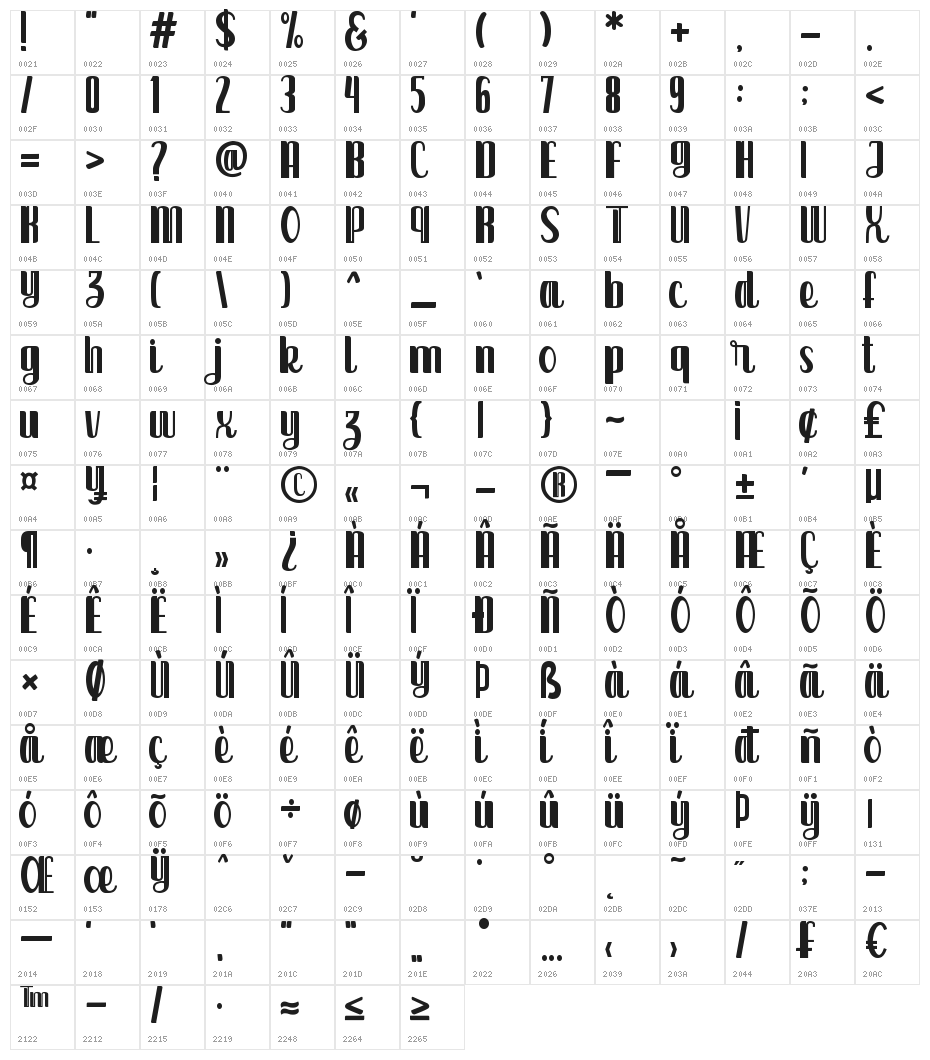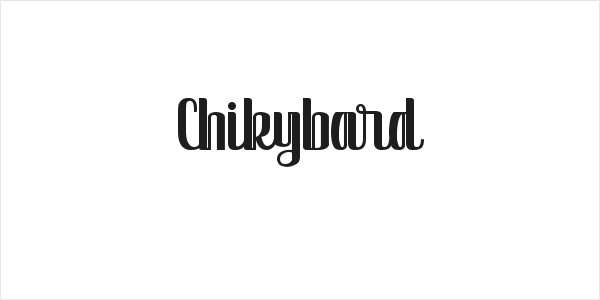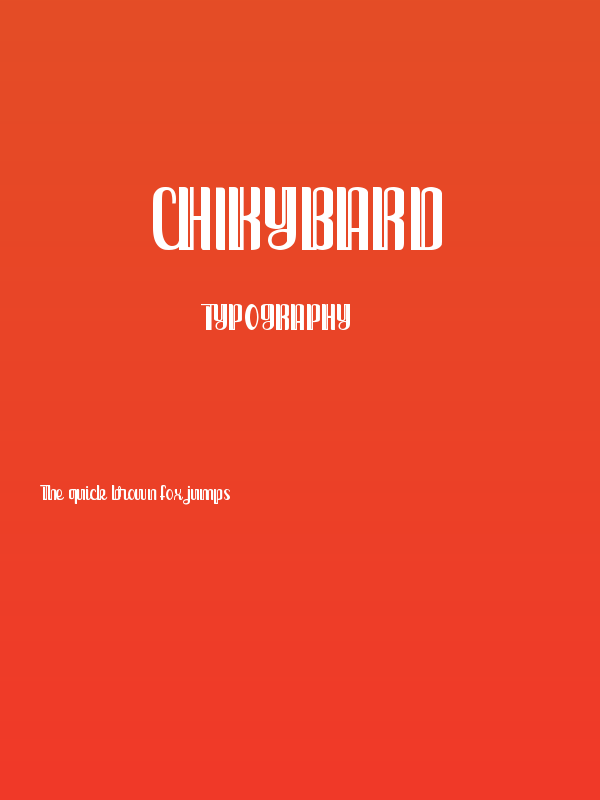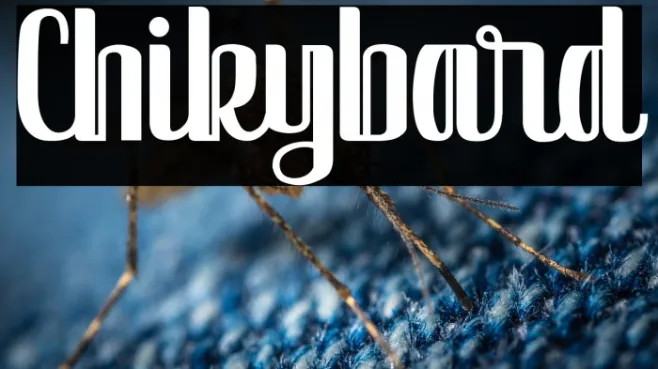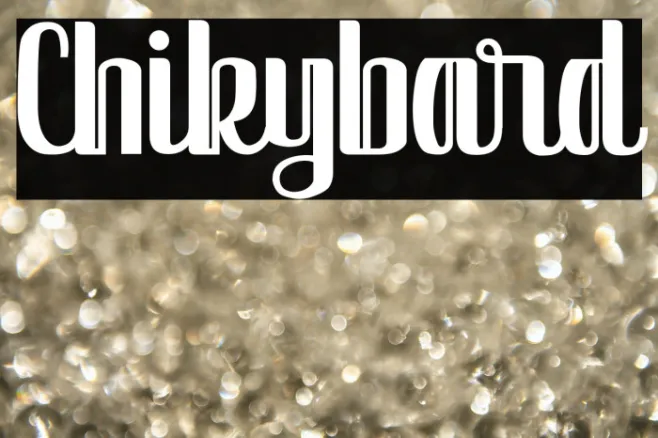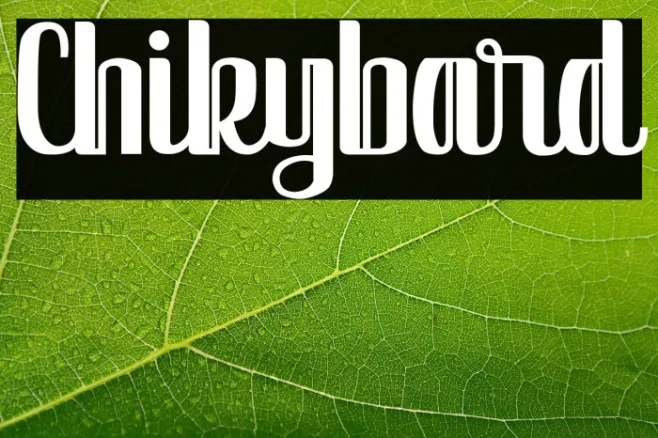
Chikybard Font
Chikybard Description
This font features a bold and dynamic design with a distinctively modern flair. The characters are tall and narrow, with a high contrast between thick and thin strokes, creating a striking visual impact. The uppercase letters are particularly elongated, giving them a unique, elegant appearance. The lowercase letters maintain a consistent style, with smooth curves and sharp angles that enhance readability. The numerals are equally bold, ensuring they stand out in any context. Special characters are designed to complement the overall aesthetic, adding versatility to the font's use. This font's design is both artistic and functional, making it suitable for a variety of creative projects.